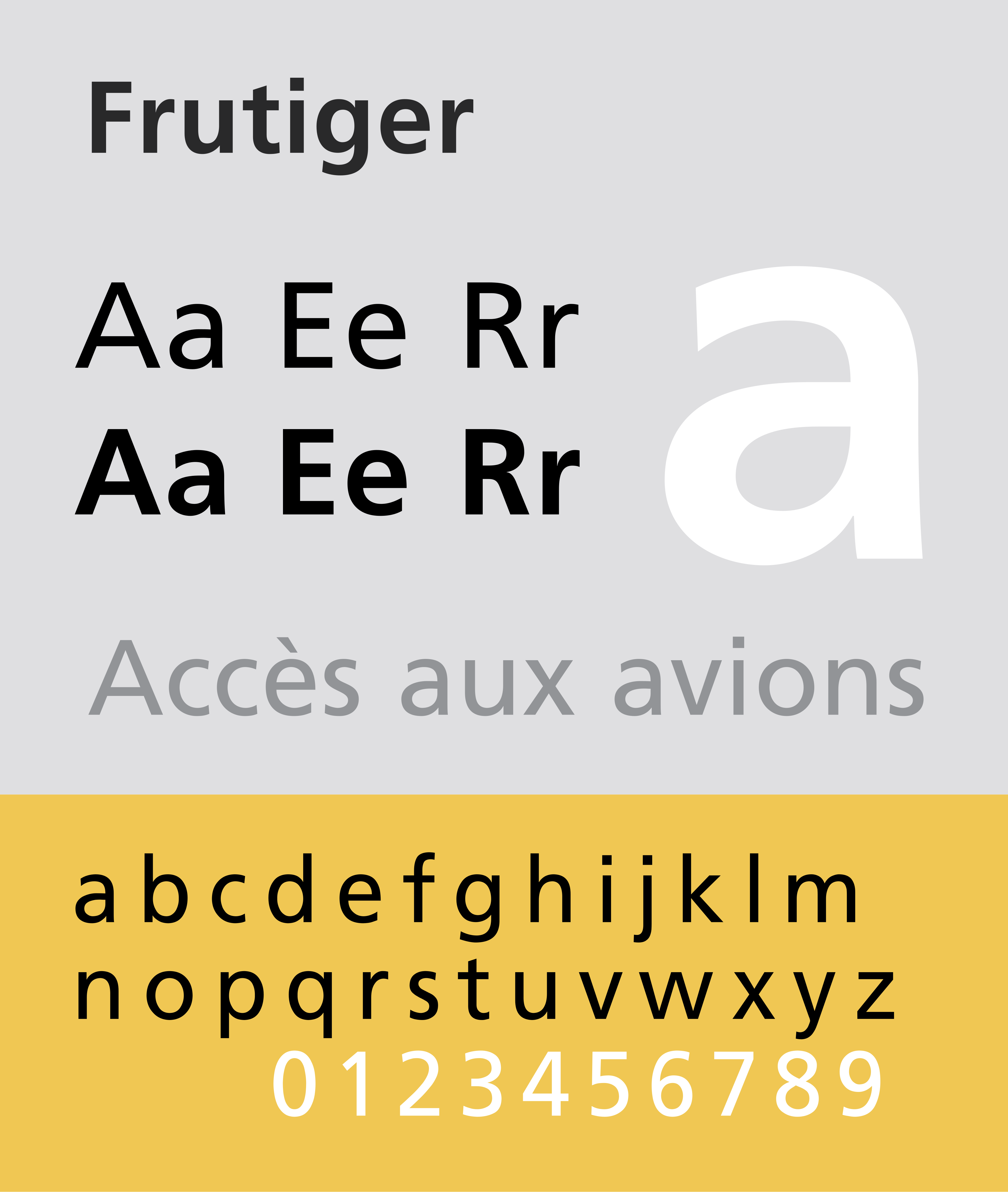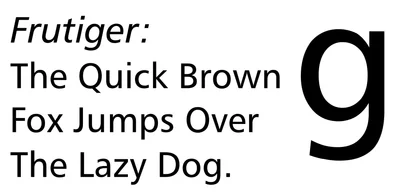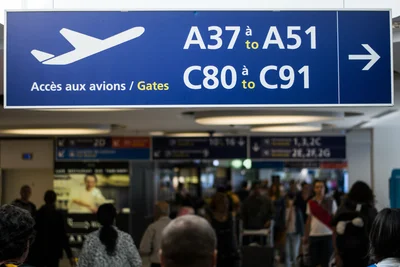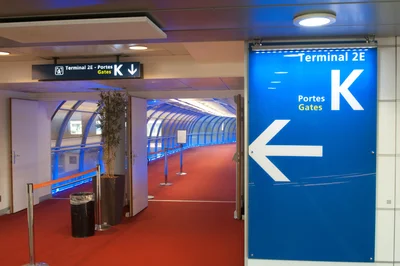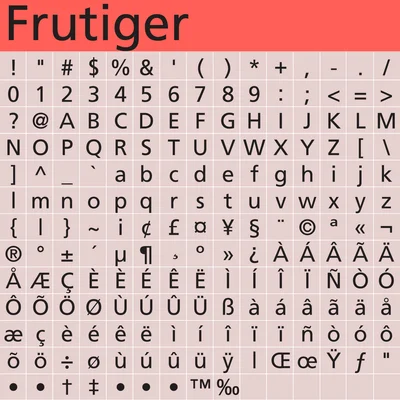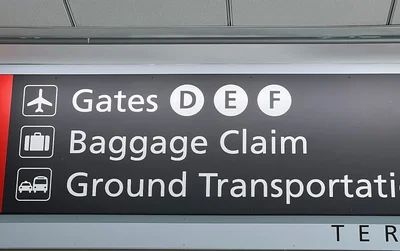
About Neue Frutiger
- Foundry
- Linotype
- Classification
- sans-serif
- Style
- humanist
Neue Frutiger is Linotype's 2009 revision of Adrian Frutiger's iconic 1976 design, co-created with Akira Kobayashi. The update refines proportions for modern digital use while preserving the humanist warmth that made the original a wayfinding and corporate standard. The Neue Frutiger World variant extends coverage to additional scripts.
Design Characteristics
Neue Frutiger retains the open apertures, organic curves, and balanced proportions that defined the original. The update modernizes spacing, adds OpenType features, and improves screen rendering. Its humanist structure makes it one of the most naturally readable sans-serifs ever designed.
Where Neue Frutiger Excels
- Signage and wayfinding: Airports, transit systems (the original Frutiger was designed for Charles de Gaulle Airport)
- Corporate communications: Business documents, annual reports, presentations
- Government and institutional: Public-facing forms, official communications
- Healthcare: Patient-facing materials requiring maximum legibility
FAQ
What's the difference between Frutiger and Neue Frutiger?
Neue Frutiger modernizes the proportions for digital use, adds more weights, improves hinting for screen rendering, and expands language support. The core design philosophy is identical.